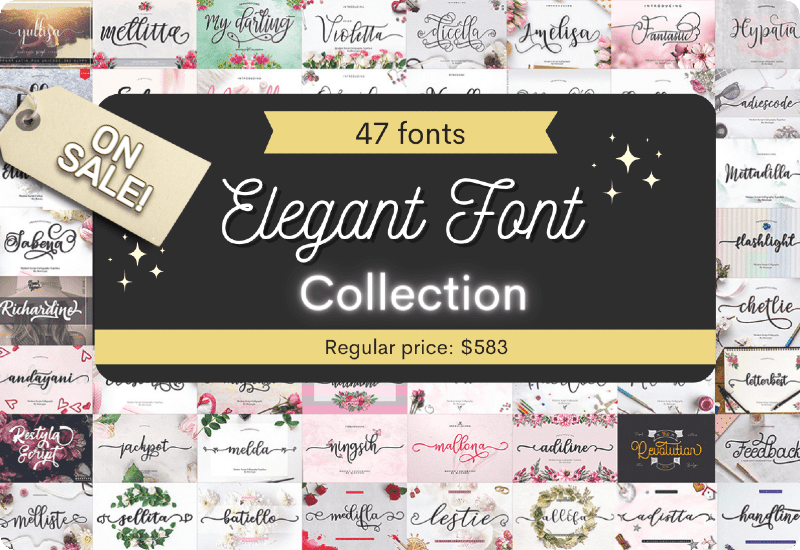
If you are a designer or creative, you know the importance of having a diverse collection of fonts at your disposal. Fonts can be used to convey a message, create a certain vibe or tone, and make your designs stand out. One collection that is sure to impress is The Elegant Font Collection. This collection features 47 unique script fonts by Bexx Type that will add a special touch to any creation.
What is The Elegant Font Collection?
The Elegant Font Collection is a bundle of 47 script fonts by Bexx Type that are perfect for designers, creatives, and anyone who wants to add a touch of elegance to their creations. The collection features a range of fonts, from simple and understated to intricate and ornate. Each font has been designed with attention to detail and is sure to make your designs stand out.
- Richardine Script Script & Handwritten
- Handline Script & Handwritten
- Ningsih Script & Handwritten
- Restyla Script Script & Handwritten
- Haertbel Script Script & Handwritten
- Delthami Script Script & Handwritten
- Chetlie Script Script & Handwritten
- Adistta Script & Handwritten
- Jackpot Script Script & Handwritten
- Undella Script Script & Handwritten
- Mettadilla Script Script & Handwritten
- Melliste Script & Handwritten
- Yullisa Script Script & Handwritten
- Medilla Script & Handwritten
- Flashlight Script Script & Handwritten
- Letterbest Script Script & Handwritten
- Migdale Script & Handwritten
- Sakira Script Script & Handwritten
- Mallona Script & Handwritten
- Adiescode Script Script & Handwritten
- Allifa Script & Handwritten
- Hypatia Script & Handwritten
- Hello Violetta Script & Handwritten
- Elistabeta Script Script & Handwritten
- Sellita Script & Handwritten
- Fantastic Script & Handwritten
- My Darling Script & Handwritten
- Batiello Script & Handwritten
- Amelisa Script Script & Handwritten
- Oh Love Script & Handwritten
- Sabena Script Script & Handwritten
- Notalistic Script & Handwritten
- Feedback Script & Handwritten
- Mellitta Script Script & Handwritten
- Adiline Script & Handwritten
- Wostella Script Script & Handwritten
- Namilla Script Duo Script & Handwritten
- The Revolution Script & Handwritten
- Dicella Script & Handwritten
- Qatielia Family Script & Handwritten
- Melda Script & Handwritten
- Andayani Script Script & Handwritten
- Maqella Script & Handwritten
- Mandailing Script Script & Handwritten
- Cerilleta Script Script & Handwritten
- Lestie Script & Handwritten
- Ellic Script & Handwritten
What Can You Create With The Elegant Font Collection?
The possibilities are endless when it comes to what you can create with The Elegant Font Collection. Some ideas include:
1. Logos
A well-designed logo is essential for any business or brand. The Elegant Font Collection has a range of script fonts that are perfect for creating a unique and memorable logo.
2. Wedding Invitations
If you’re planning a wedding or know someone who is, The Elegant Font Collection has the perfect fonts for creating elegant and beautiful invitations.
3. Pantry Labels
Organize your pantry in style with custom labels made with fonts from The Elegant Font Collection.
4. Greeting Cards
Create one-of-a-kind greeting cards for any occasion with the wide range of script fonts in this collection.
5. Posters
Make a statement with a poster that features a unique and eye-catching script font from The Elegant Font Collection.
6. Websites
Fonts are an essential part of website design. Use the fonts in this collection to create a website that is both visually stunning and easy to read.
What Makes The Elegant Font Collection Special?
There are many font collections available, so what sets The Elegant Font Collection apart? Here are a few reasons why this collection is a must-have for any designer or creative:
1. 47 Unique Fonts
The Elegant Font Collection features 47 script fonts that are not available anywhere else. These fonts have been carefully crafted and designed to add a touch of elegance to any creation.
2. PUA Encoded
Most of the fonts in this collection are PUA encoded, which means you can access all of the special characters with ease. This makes it easy to add unique flourishes and accents to your designs.
The Elegant Font Collection is a stunning assortment of 47 unique script fonts that are sure to add a touch of elegance to any creation. Whether you’re designing a logo, creating wedding invitations, or organizing your pantry, these fonts are a must-have for any designer or creative. And with the commercial license included in the free download, there’s no reason not to add this collection to your font library today.